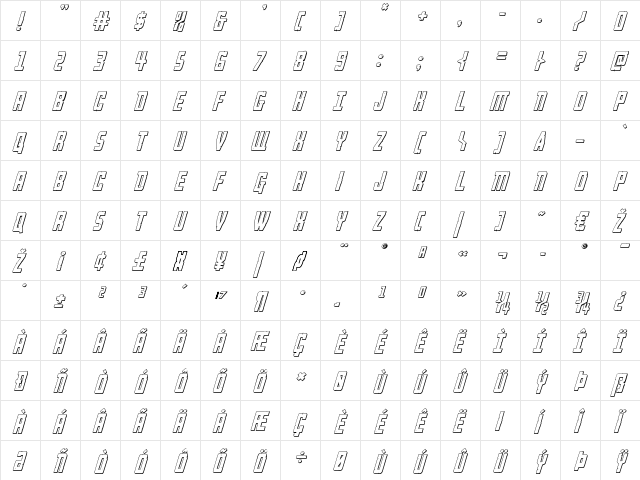
Rockledge 3D Italic Italic
Design Context for Rockledge 3D Italic Typeface
Rockledge 3D Italic is a composed and adaptable typeface that performs quietly and consistently across a wide range of design contexts. Its italic angle brings a sense of urgency and motion to the letterforms.
Pro Tip: Use Rockledge 3D Italic for emphasis, pull quotes, and subheadings where its slanted energy can add rhythm to the layout.